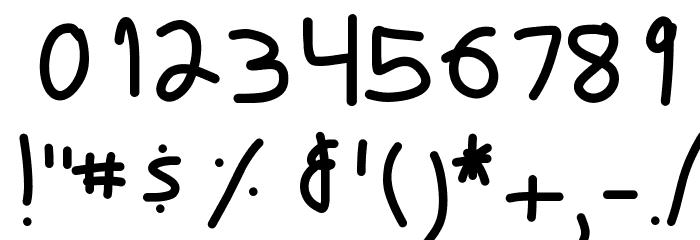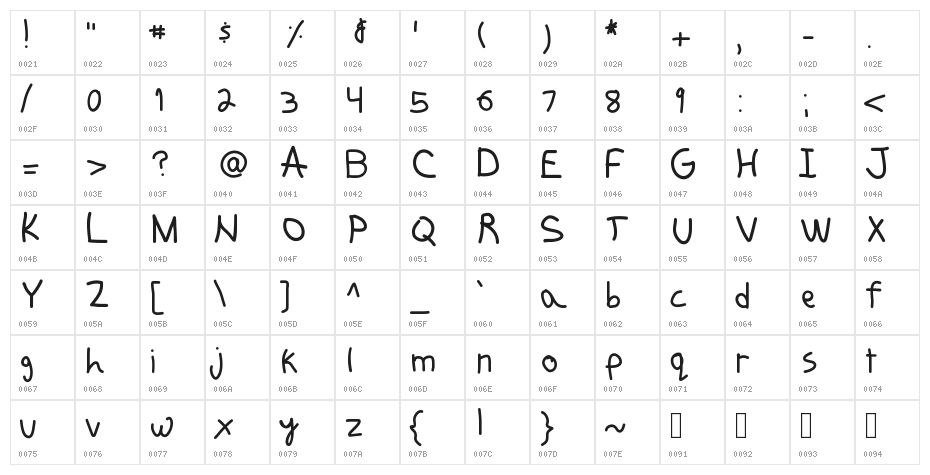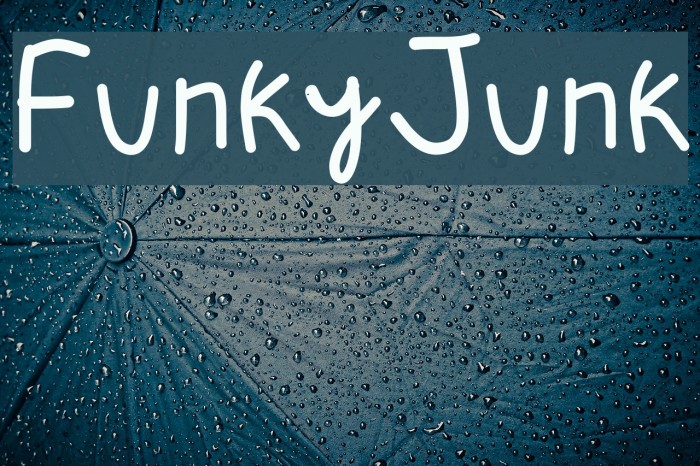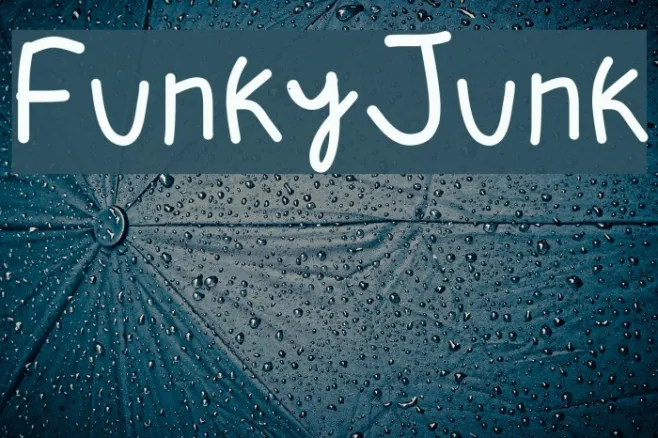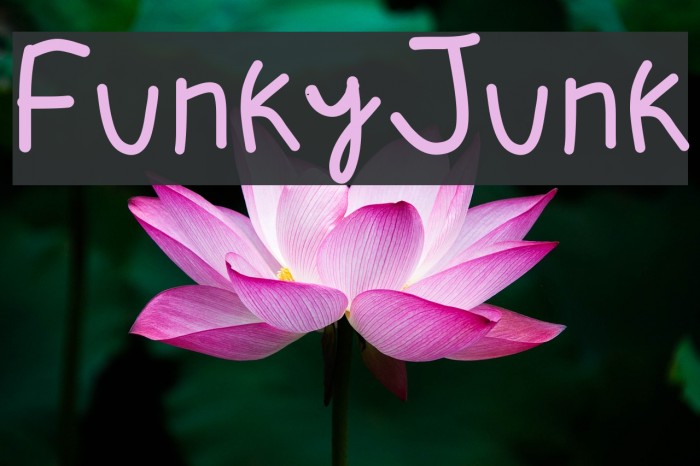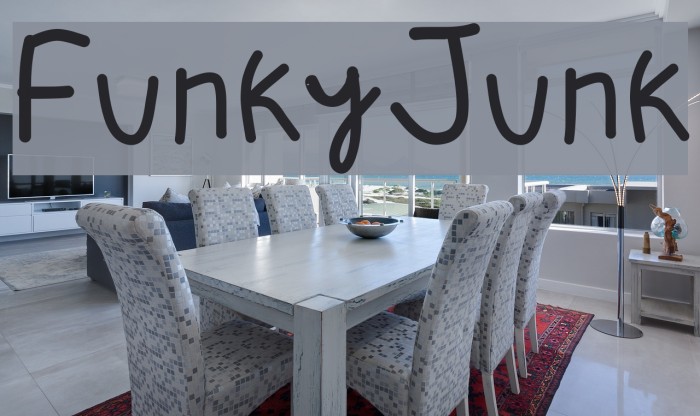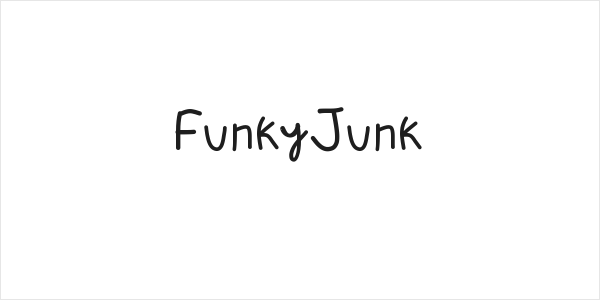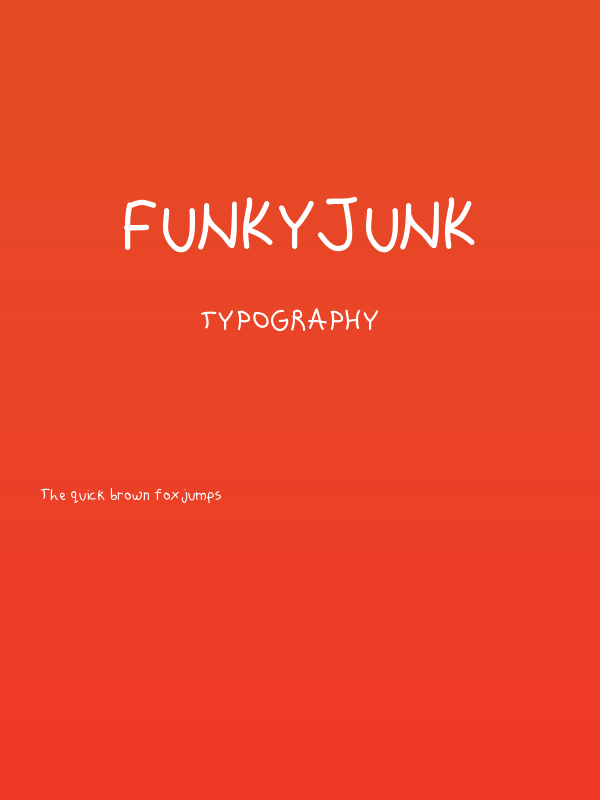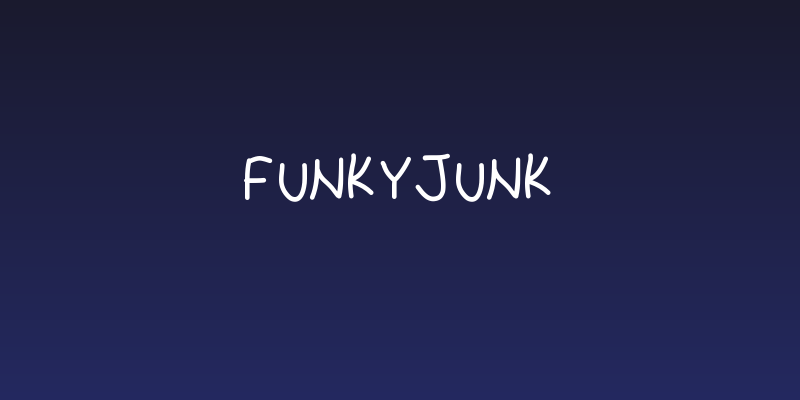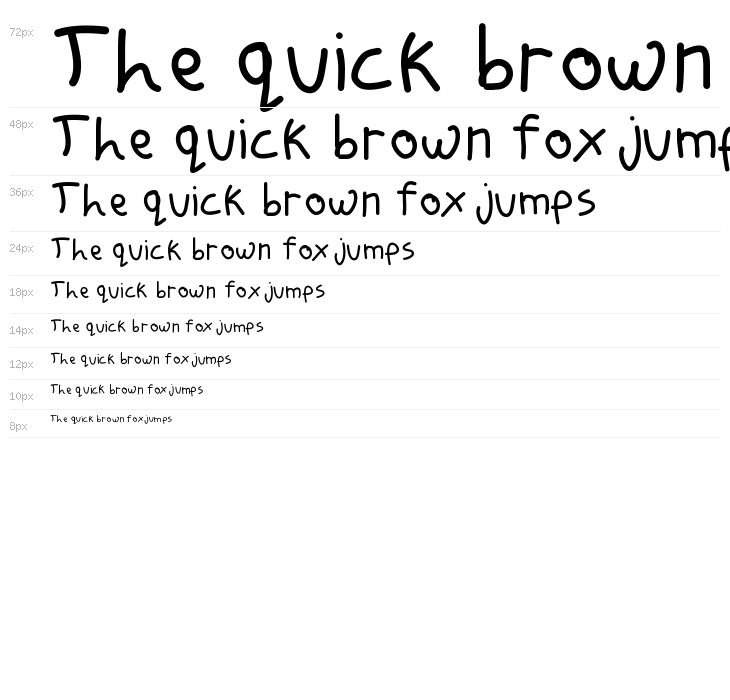
FunkyJunk Font
FunkyJunk Description
This playful and whimsical font features a hand-drawn aesthetic with irregular, slightly wavy lines that give it a casual and informal feel. The characters are bold and rounded, with a consistent stroke width that maintains readability while adding a touch of fun. The uppercase and lowercase letters are distinct, with the lowercase letters having a slightly more exaggerated and quirky appearance. Numbers and special characters follow the same playful style, making this font suitable for creative and informal projects. Its unique style can add a personal touch to any design.
| Proposed Projects | Ideal for children's books, playful branding, greeting cards, and casual invitations. |